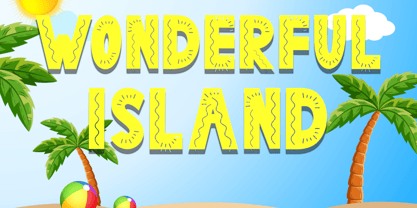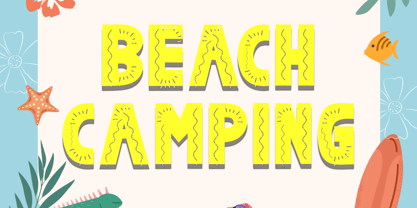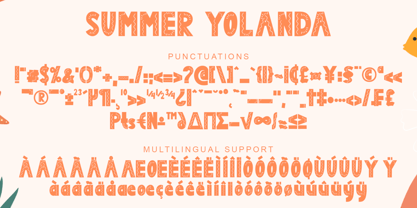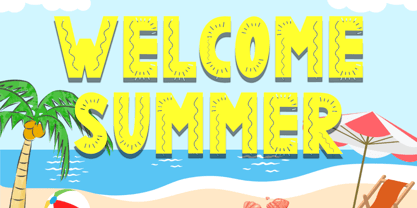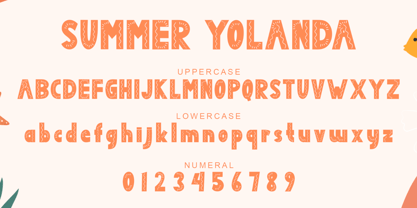
Summer Yolanda
by Yoga Letter
The Summer Yolanda Font Family was designed by Isroni Yoga Prasetya and published by Yoga Letter. Summer Yolanda contains 1 styles. More about this family
"Summer Yolanda" is a cute and unique display font. This font is equipped with uppercase, lowercase, numerals, punctuations and multilingual support. It is very suitable for use in summer, holiday, vacation, spring, invitation, birthday, poster, banner, print, sticker, logo and others.
Designers: Isroni Yoga Prasetya
Foundry: Yoga Letter